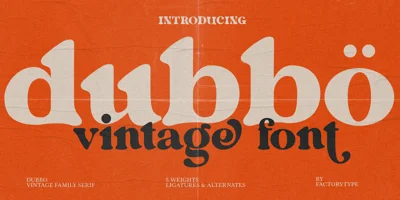
Dubbo Font
Dubbo Font is perfect for outdoor adventure branding, rugged apparel design, camping gear packaging, wilderness tour marketing, outback-themed restaurants, hiking trail signage, adventure sports logos, survival equipment branding, ranch and farm identity, and any project that celebrates the raw beauty and untamed spirit of rural landscapes.
What makes Dubbo Font exciting is its authentic connection to the Australian outback spirit and frontier heritage that embodies resilience and authentic country character. This typeface captures the essence of wide-open spaces and pioneering determination with sturdy letterforms that reflect the enduring strength of rural communities. The font's robust character makes it perfect for brands and projects that want to communicate reliability, authenticity, and connection to the land.
The Dubbo Font family includes multiple weights and stylistic variations, featuring light, regular, and bold versions along with condensed styles and decorative elements inspired by traditional outback signage. This comprehensive collection allows designers to create versatile typography systems that maintain the font's signature country character while providing flexibility for various outdoor and rural design applications.
When exploring authentic country typography, Dubbo Font represents an exceptional opportunity to work with a typeface that genuinely captures the spirit of rural life and outdoor adventure. This font demonstrates superior craftsmanship in balancing rugged character with professional legibility, creating letterforms that feel both authentic and contemporary for modern branding applications.
Professional designers appreciate Dubbo Font for its ability to instantly communicate trustworthiness and down-to-earth values across various media platforms. The font's honest character makes it particularly effective for outdoor brands, agricultural companies, and rural tourism businesses seeking to establish authentic connections with audiences who value simplicity and genuine country heritage.
The enduring appeal of Dubbo Font lies in its perfect representation of rural values and outdoor lifestyle that continues to resonate with consumers seeking authentic experiences away from urban complexity. This typeface serves as a powerful tool for brands wanting to tap into the growing appreciation for simple living and connection to nature.
For creative professionals working with outdoor and rural-themed projects, Dubbo Font represents the ultimate typography solution that brings genuine country character and outdoor authenticity to any application, ensuring designs reflect the honest beauty and enduring values of rural life and wilderness adventure.